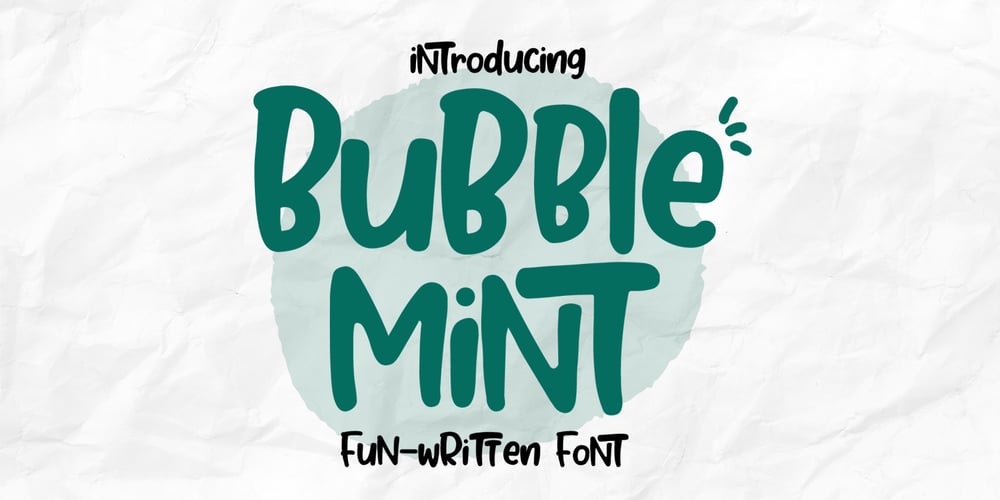
Bubble Mint
Bubble Mint font
Bubble Mint Font Family was designed by Dimas Prasetyo and published by DM Studio. Bubble Mint contains 1 styles and family package options. Bubble Mint Font is a playful and whimsical handwritten typeface that brings a burst of fun and creativity to your designs. With its bubbly and energetic letterforms, this font is perfect for a variety of applications, including children’s books, party invitations, playful branding, and more. Add a touch of joy and excitement to your projects with the Bubble Mint Font.Features: Playful and Whimsical Design: The Bubble Mint Font features playful and bubbly letterforms that add a sense of fun and creativity to your text. Versatile Application: Ideal for children’s books, party invitations, playful branding, and other creative projects that require a joyful and energetic aesthetic. Uppercase and Lowercase Letters: Both uppercase and lowercase letters included, providing creative flexibility. Ligatures and Special Characters: Includes ligatures and special characters to enhance visual interest and create unique typography. Punctuation and Symbols: Comprehensive set of punctuation marks, numerals, and symbols for versatile use in various design contexts. Easy Installation and Use: Simple installation on both Windows and Mac operating systems. Seamlessly integrates with popular design software for a smooth and efficient design workflow.